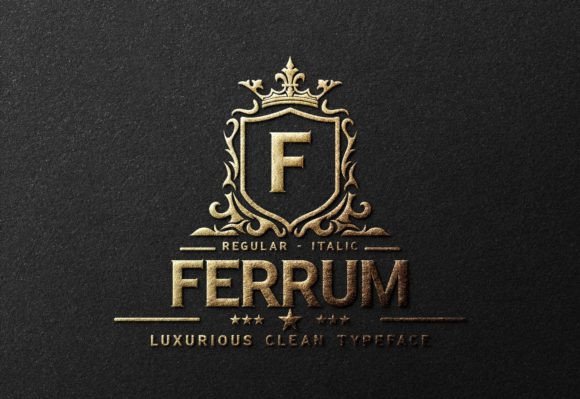
Ferrum Font: The Ultimate Elegant and Minimalist Slab Serif Typeface
In the world of typography, finding the perfect font for your creative project can be a daunting task. With numerous options available, it’s easy to get overwhelmed by the choices. However, if you’re looking for a typeface that exudes elegance and minimalism, look no further than Ferrum Font. This slab serif font is designed to provide a versatile solution for projects where you’re uncertain about using serif, slab serif, or sans serif fonts.
The Story Behind Ferrum Font
Ferrum Font is a carefully crafted typeface that combines the best features of serif, slab serif, and sans serif fonts. Its name “Ferrum” is derived from the Latin word for iron, conveying strength and resilience. The font’s design is inspired by the idea of simplicity and sophistication, making it an ideal choice for creative projects that require a touch of elegance.
Key Features of Ferrum Font
- Elegant and Minimalist Design: Ferrum Font boasts a clean and minimalist design, making it perfect for projects that require a touch of sophistication.
- Slab Serif Typeface: The font features a slab serif design, which provides a unique and distinctive look that’s both modern and classic.
- Versatile and Adaptable: Ferrum Font is designed to be versatile and adaptable, making it suitable for a wide range of creative projects, from branding and advertising to publishing and digital media.
- Highly Legible: The font is optimized for readability, ensuring that your text is clear and easy to read, even at small sizes.
What Makes Ferrum Font So Special?
Ferrum Font is more than just a typeface – it’s a design solution that can elevate your creative projects to new heights. Here are some reasons why Ferrum Font stands out from the crowd:
Unique Features of Ferrum Font
- Uncertain about Font Styles?: Ferrum Font provides a solution for projects where you’re unsure about using serif, slab serif, or sans serif fonts. Its unique design blends the best features of each style, making it an excellent choice for projects that require a versatile typeface.
- Make Your Projects Come Alive: With Ferrum Font, you can add a touch of elegance and sophistication to your creative projects. Its minimalist design and slab serif features make it perfect for projects that require a modern and classic look.
- Perfect for Branding and Advertising: Ferrum Font is an excellent choice for branding and advertising projects, where a distinctive and memorable typeface can make all the difference.
How to Use Ferrum Font in Your Creative Projects
Using Ferrum Font in your creative projects is easy. Here are some tips to get you started:
Tips for Using Ferrum Font
- Pair it with Other Fonts: Ferrum Font can be paired with other fonts to create a unique and visually appealing typography. Experiment with different font combinations to find the perfect match for your project.
- Use it for Headings and Body Text: Ferrum Font is suitable for both headings and body text. Use it to create a consistent typography throughout your project.
- Experiment with Different Sizes and Colors: Ferrum Font can be used at various sizes and colors. Experiment with different sizes and colors to create visual interest and hierarchy in your project.
In conclusion, Ferrum Font is an elegant and minimalist slab serif typeface that’s perfect for creative projects that require a touch of sophistication. Its versatile design, high legibility, and unique features make it an excellent choice for a wide range of applications. Whether you’re working on a branding project, advertising campaign, or publishing project, Ferrum Font is sure to make your project come alive.